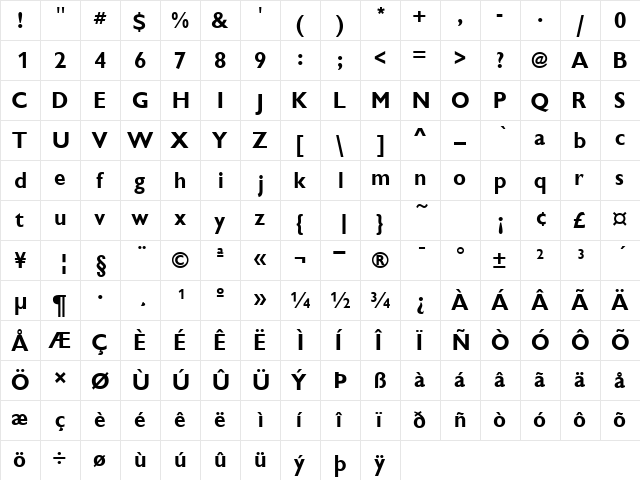
IdiomSSK Bold
Design Context for IdiomSSK Typeface
IdiomSSK takes a measured approach to typography — its balanced proportions and neutral character make it a reliable workhorse for both digital and print work. The heavy weight commands attention and anchors typographic hierarchies.